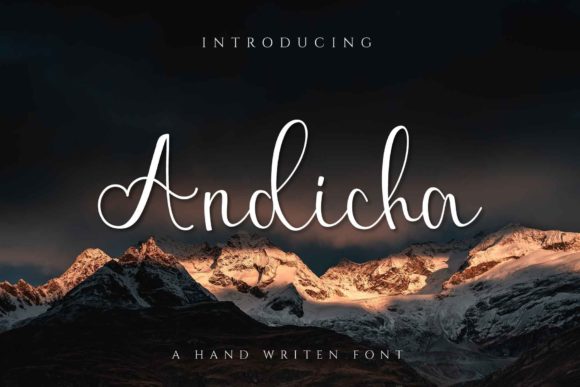
The Quest for the Perfect Font: Discovering Andicha
I still remember the frustration of scrolling through font after font, searching for the perfect one to bring my design project to life. It was for a wedding invitation, and I wanted something that exuded elegance and sophistication. The client had a clear vision of a refined, modern script font that would make their special day even more memorable. After hours of browsing, I stumbled upon Andicha Font, and it was love at first sight! 💕
Andicha is a beautiful and refined script font that has a classy, elegant, and modern look. Its versatility makes it perfect for various design projects, including logos, branding, invitations, stationery, wedding designs, social media posts, and much more!
An Honest Review of Andicha Font
What I Love About Andicha ✨
• ✅ Elegant and refined design that adds a touch of sophistication to any project
• ✅ Extensive range of OpenType features, including glyphs and stylistic alternates
• ✅ Perfect for creating beautiful wedding invitations, stationery, and other formal designs
• ⚠️ Some users may find the font a bit too refined or formal for casual designs
• ⚠️ Limited availability of bold or heavy weights, which may not be suitable for all design projects
The Story Behind Andicha Font
Andicha Font was designed by a talented typographer who wanted to create a font that would exude elegance and sophistication. The designer’s inspiration came from classic calligraphy and modern digital typography. The result is a refined and elegant script font that is perfect for formal designs.
Q: What is Andicha Font?
A: Andicha Font is a beautiful and refined script font that has a classy, elegant, and modern look.
Q: What can I use Andicha Font for?
A: Andicha Font is perfect for various design projects, including logos, branding, invitations, stationery, wedding designs, social media posts, and much more!
Q: Does Andicha Font support OpenType features?
A: Yes, Andicha Font supports a wide range of OpenType features, including glyphs, stylistic alternates, and ligatures.